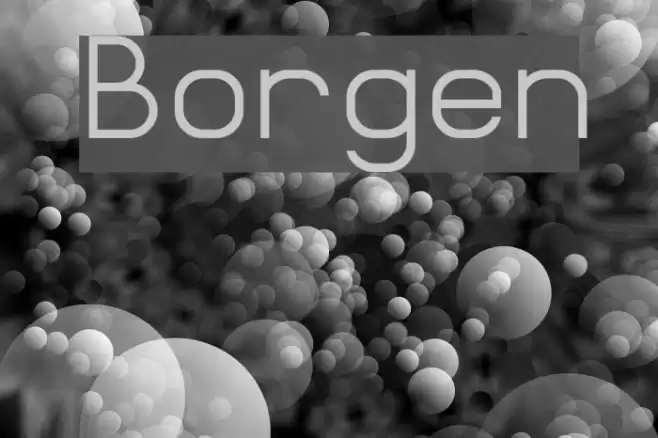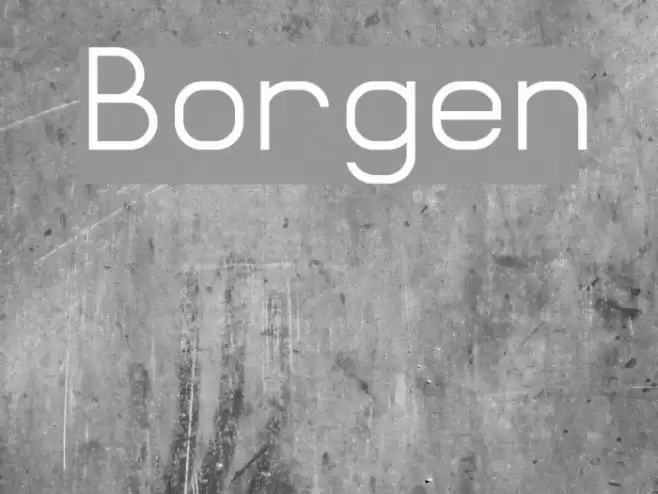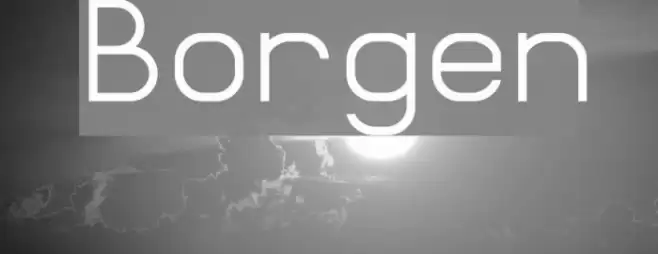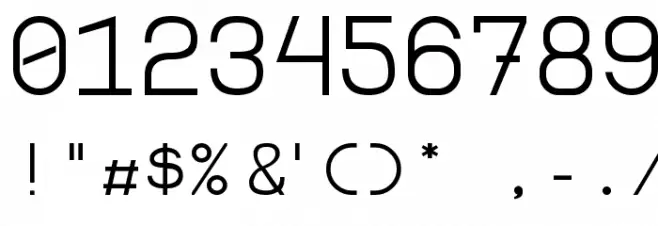
Borgen Font
Borgen Description
This font features a clean and modern design with a geometric sans-serif style. The characters are uniform in width, providing a balanced and structured appearance. The uppercase letters are bold and assertive, while the lowercase letters maintain a consistent height, enhancing readability. The numerals are clear and distinct, making them suitable for various applications. The special characters are well-integrated, maintaining the overall aesthetic of the font. This typeface is versatile, offering a contemporary look that is ideal for digital and print media.
A modern geometric sans-serif font with uniform width and clean lines from Basic fonts.
- Proposed Projects: Ideal for branding, web design, advertising, and editorial layouts.
- Use Case: Headlines, Body text, Logos